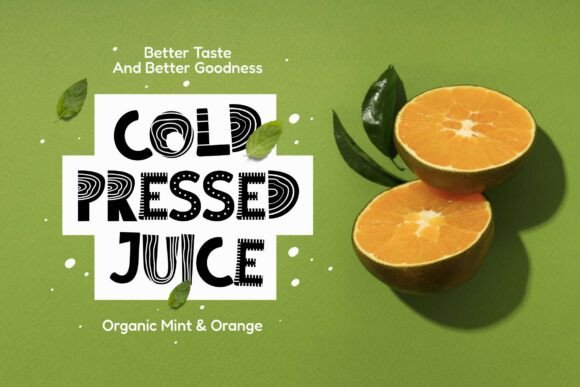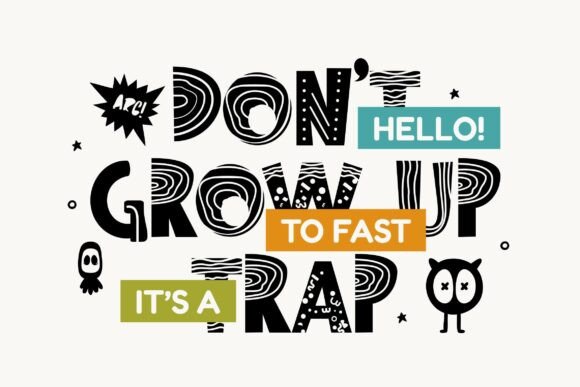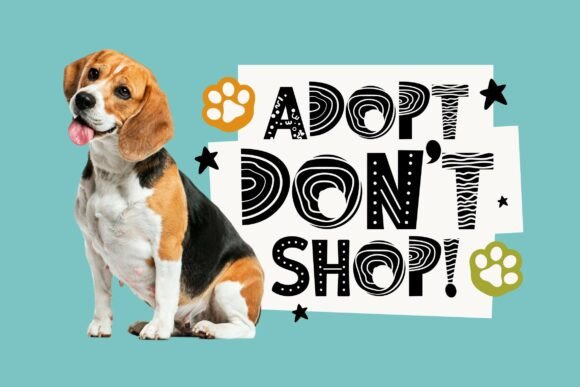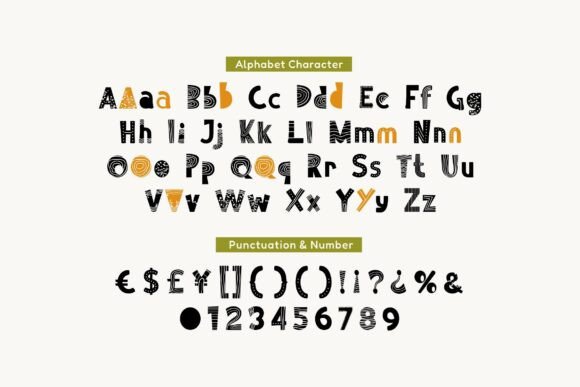
Introduction to Happy Zone Font
Happy Zone is a playful and eclectic decorative font that brings a burst of creativity to every letter.
Each character combines a mix of quirky textures and styles , featuring patterns like stripes, dots, waves, zigzags , and bold solid fills โall woven together to create a vibrant, artsy aesthetic Radiating energy and charm, Happy Zone delivers a unique and dynamic look , making it perfect for playful branding , childrenโs content , DIY crafts , or any project that thrives on fun and imagination .
Key Features of Happy Zone Font
Why Choose Happy Zone Font?